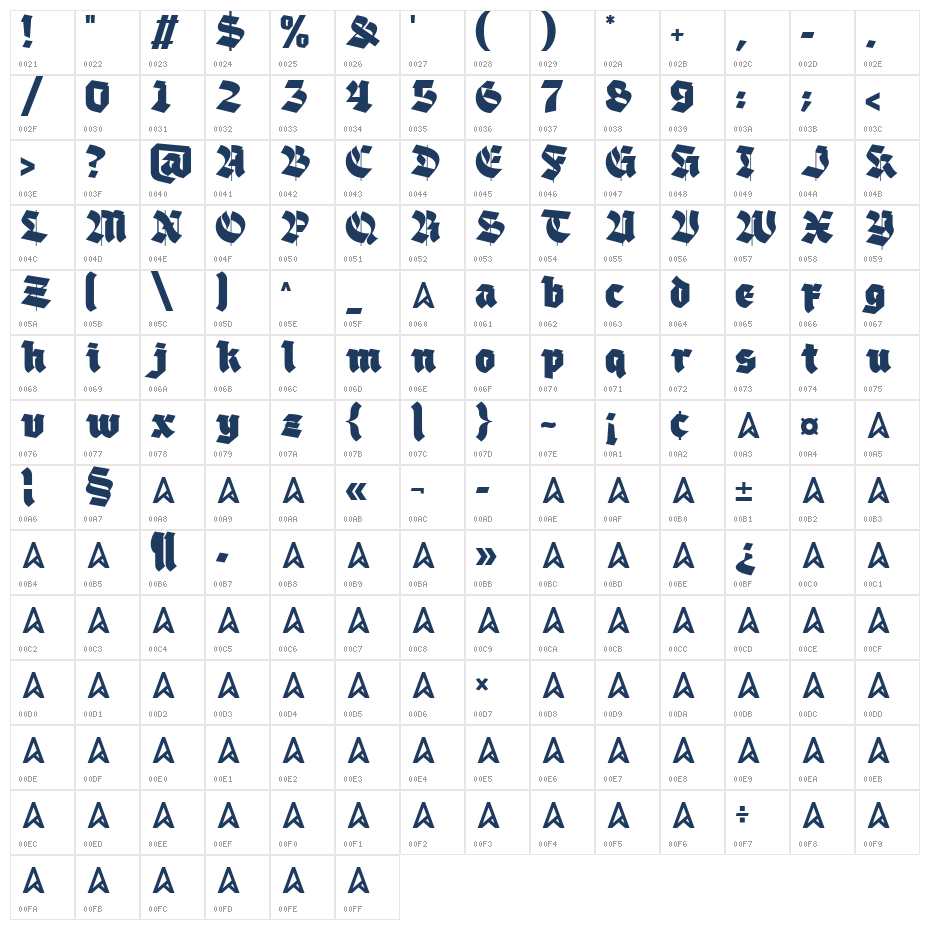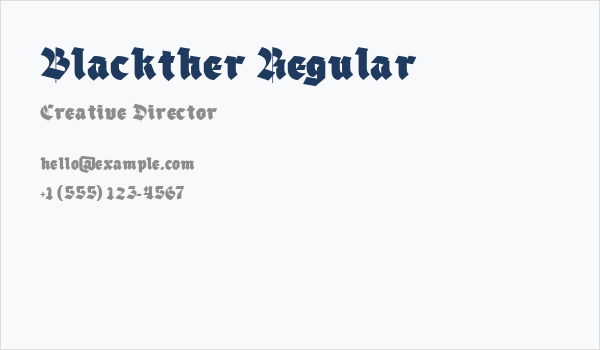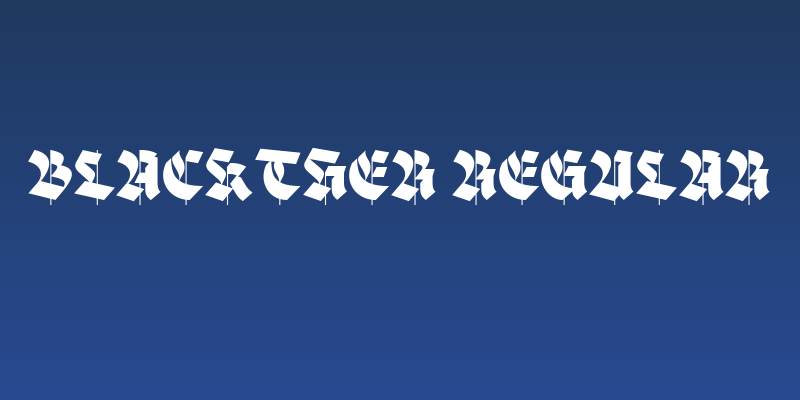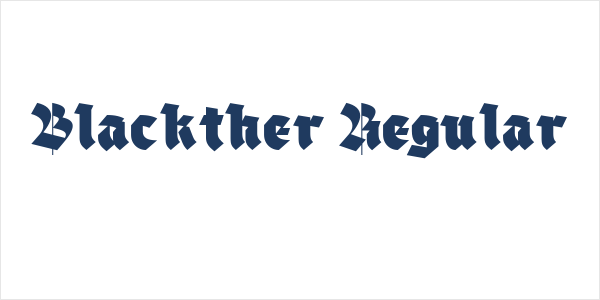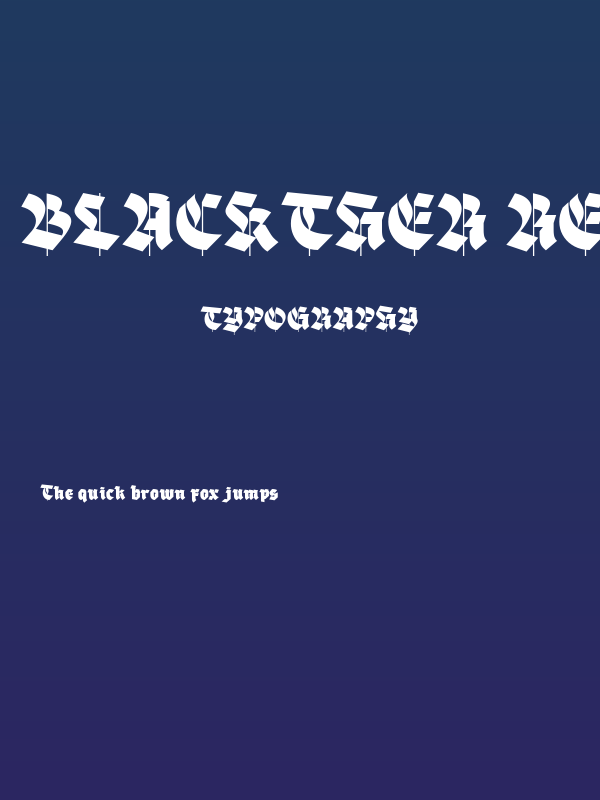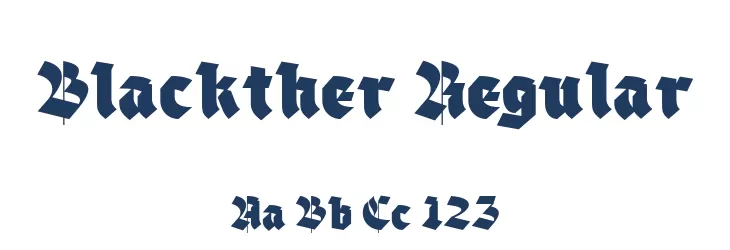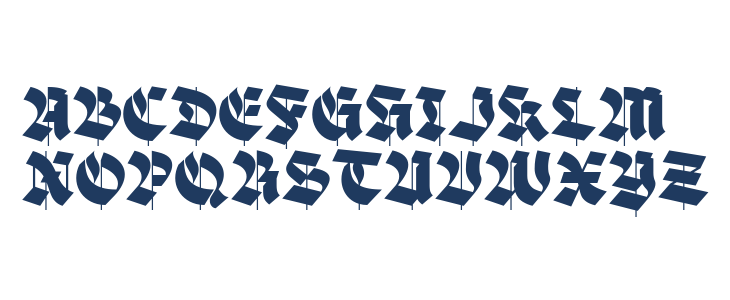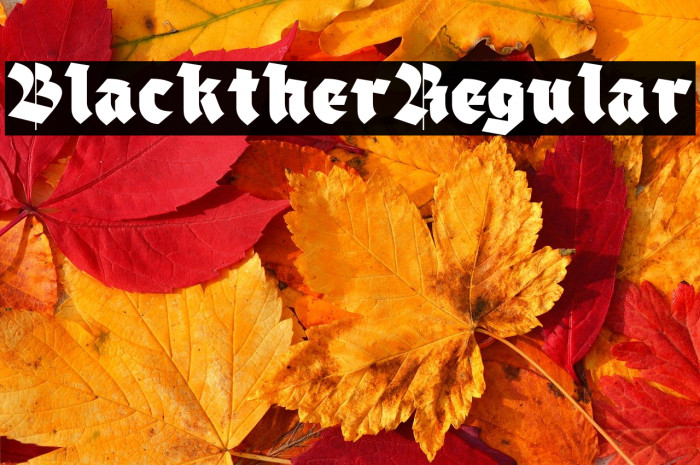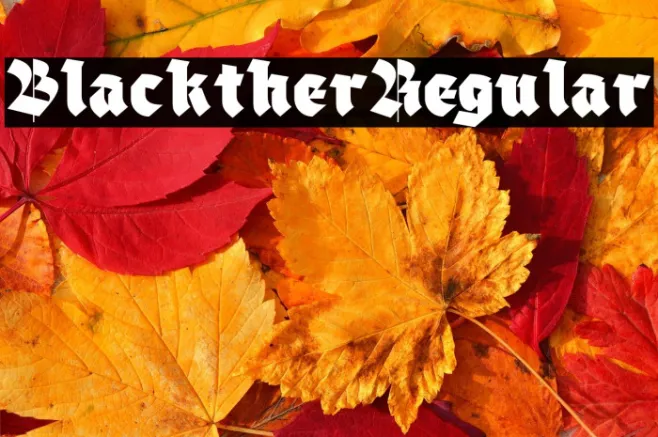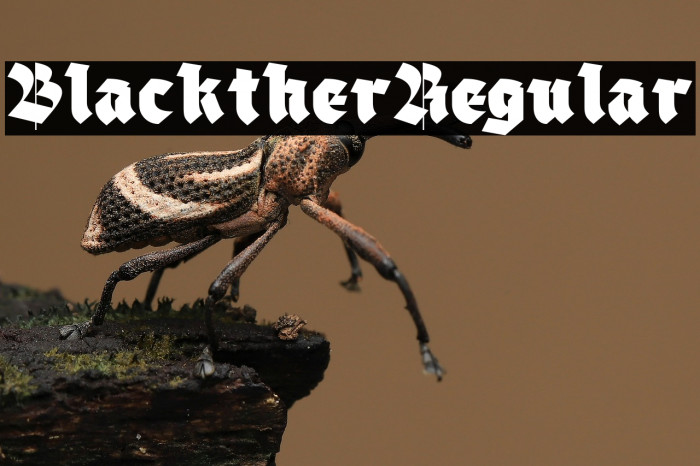
Blackther Regular Font
Blackther Regular Description
Bold, angular, Gothic-style display font with a strong, decorative appearance.
| Overall Style | Gothic, Medieval, Vintage |
| Use Case | Headlines, Posters, Logos, Branding |